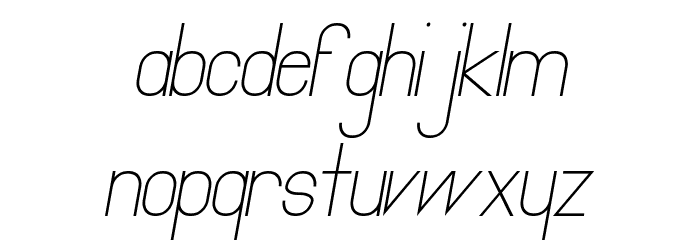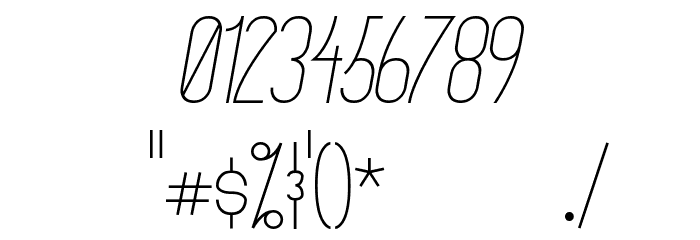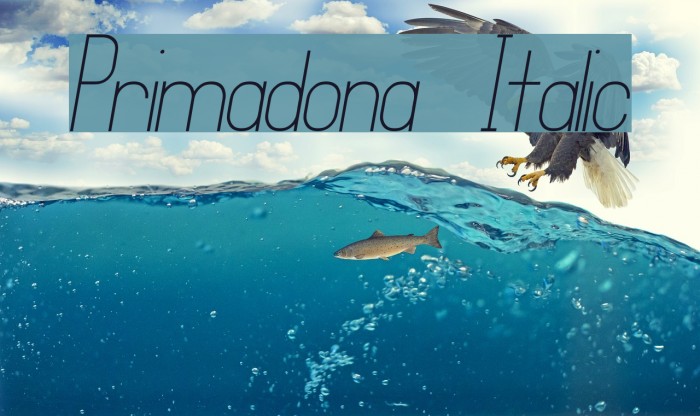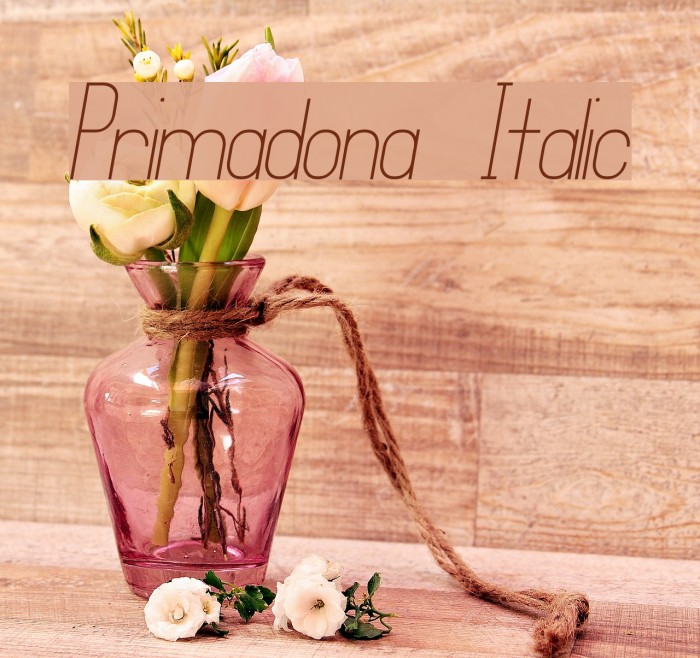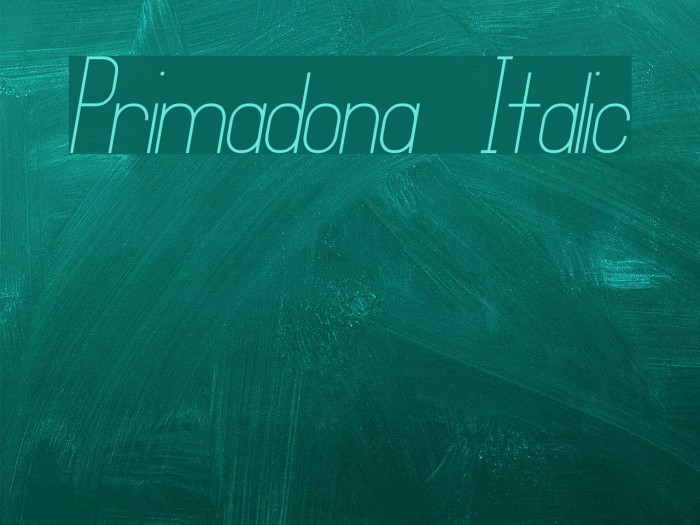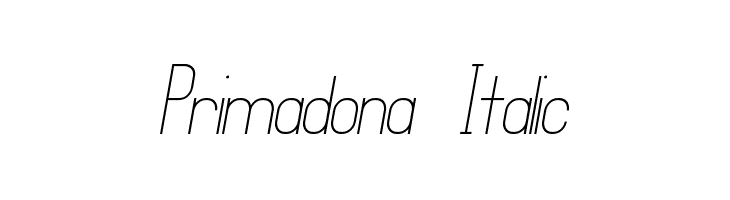
Primadona Italic Font
This font exhibits a sleek and modern design with an italicized style, characterized by its elongated and slightly condensed letterforms. The strokes are thin and consistent, providing a clean and elegant appearance. The uppercase and lowercase letters maintain a harmonious flow, with a slight slant that adds a dynamic and sophisticated touch. The numerals and special characters are designed to complement the overall aesthetic, ensuring readability and style. This font's refined and contemporary look makes it suitable for a variety of design applications.
A sleek, modern italic font with thin, elongated letterforms.
- Proposed Projects: Ideal for fashion magazines, elegant branding, modern websites, and stylish invitations.